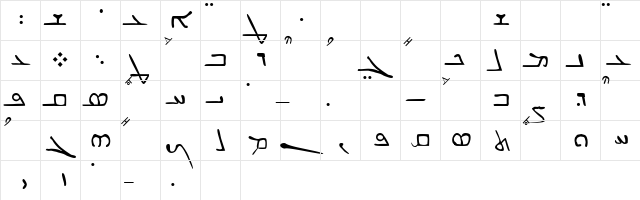
SPEdessa Regular
SPEdessa takes a measured approach to typography — its balanced proportions and neutral character make it a reliable workhorse for both digital and print work.